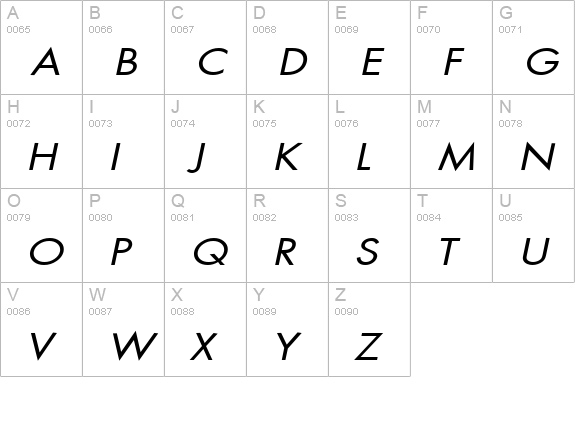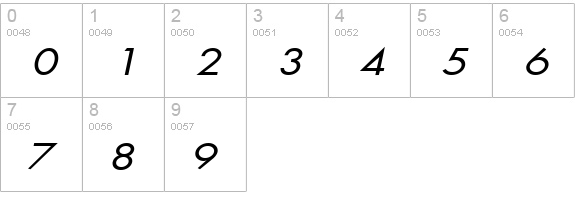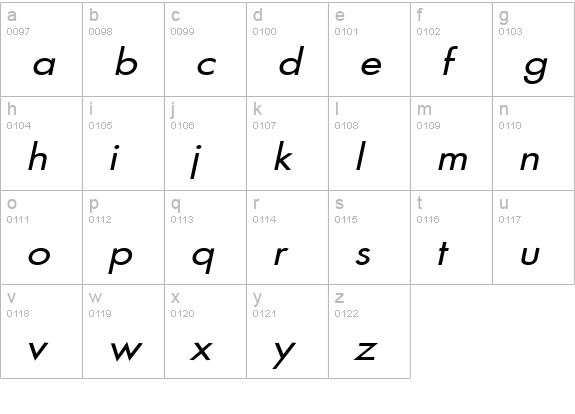
Beau-Extended Italic Font Details
Beau-Extended Italic is a distinctive, extended-width, italic variant in the Beau typeface family \xE2\x80\x94 well suited to design and typography projects.
Beau-Extended Italic font is a modern and elegant typeface designed to make your text stand out with its sleek and stylish appearance. The extended italic style adds a touch of sophistication and flair to any project, whether it's for print or digital use. This font is free to download at FontsMarket.com, allowing you to access its premium design without any cost. With its clean lines and unique letterforms, Beau-Extended Italic font is perfect for adding a touch of class to your designs, from logos and branding to headers and titles. Whether you're looking to elevate your graphic design projects or create eye-catching social media posts, Beau-Extended Italic font is a versatile choice that will help you make a lasting impression. Download it today and see how it can enhance your creative work with its distinctive style and professional look.